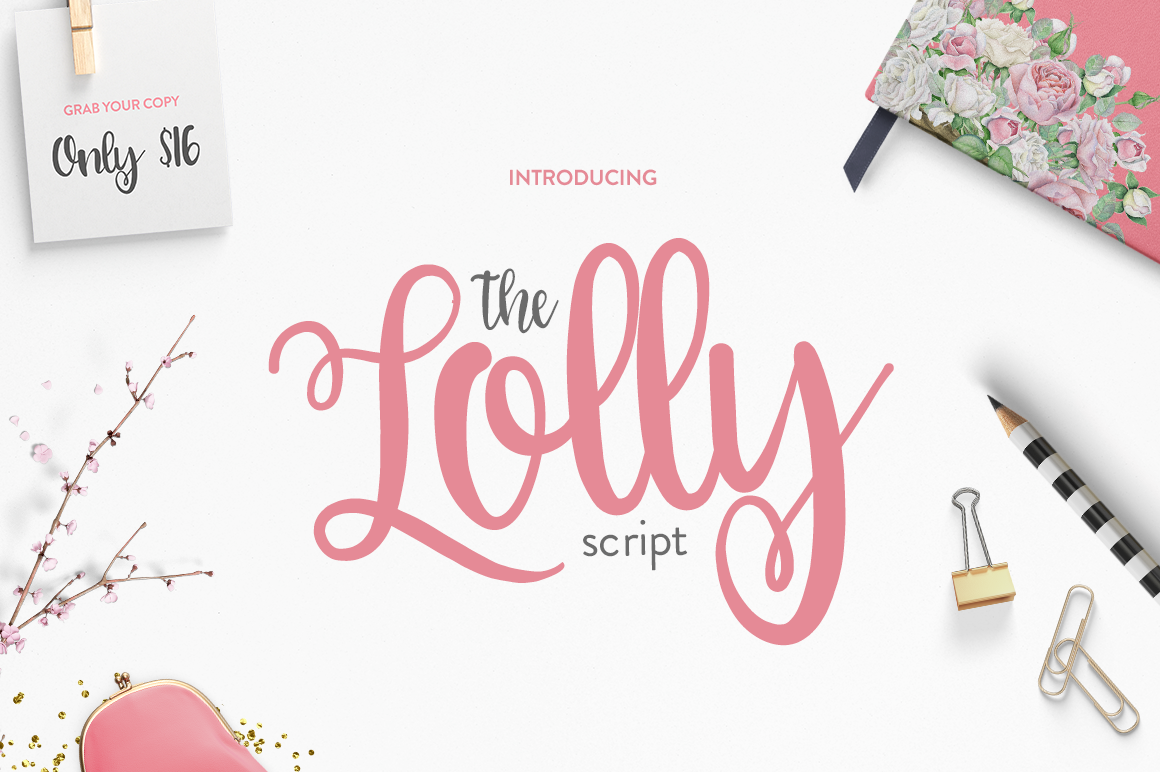
The Lolly Script is a brand new thick script based font. Available for both personal and commercial use. No extended license is required. Download and use The Lolly Script for anything and everything.
This font is 100% accessible to all, across all programs and includes over 100 different glyphs.